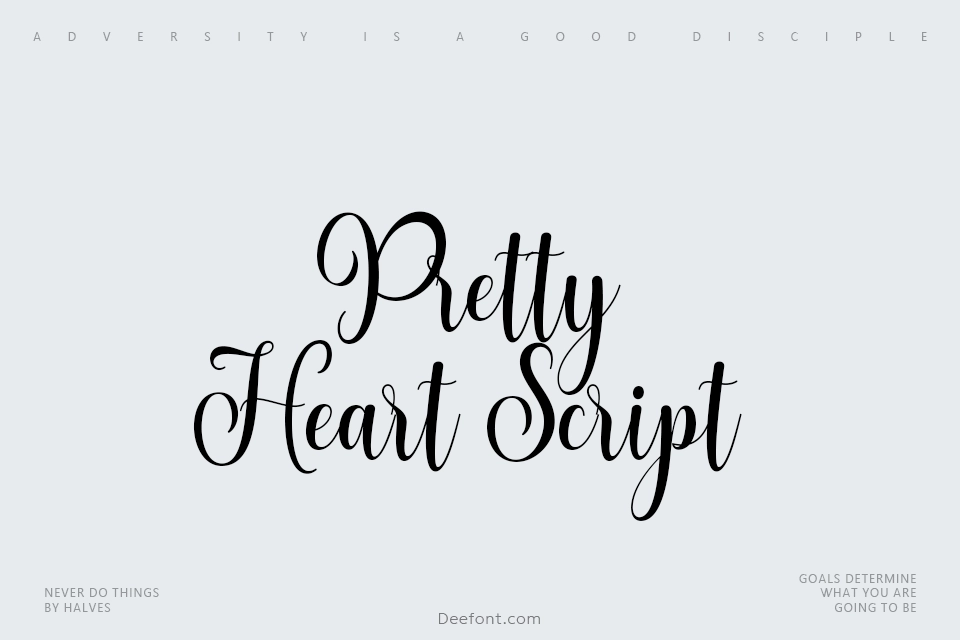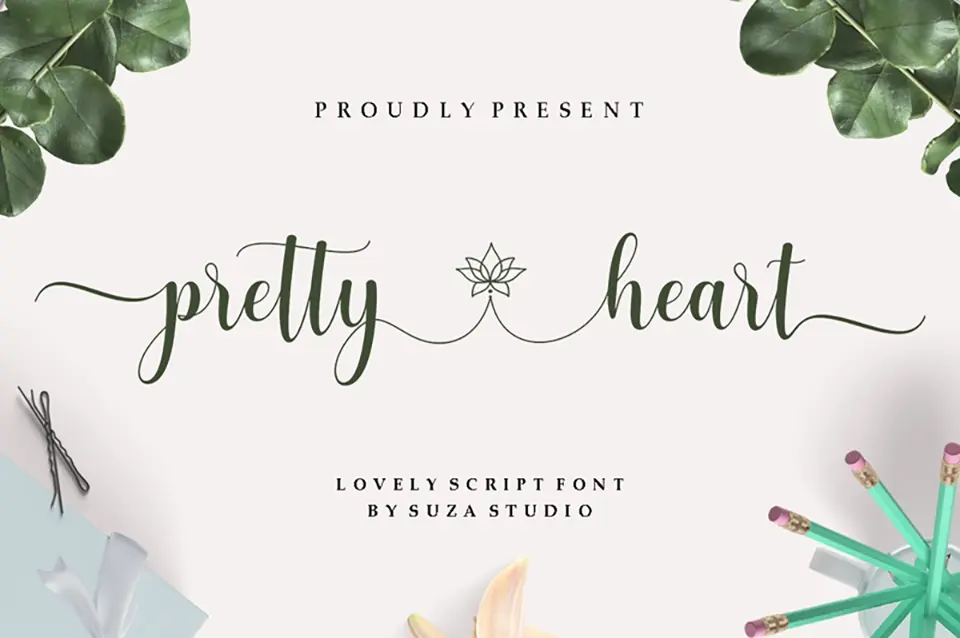
Pretty Heart Script Font
Pretty Heart Script is an elegant and flowing calligraphy font with an irregular baseline, perfect for creating beautiful designs. This lovely script typeface captures the essence of modern handwriting with its trendy and smooth letterforms. Ideal for wedding invitations, thank you cards, quotes, branding projects, and stationery, the font brings sophistication and warmth to any creative work. Its charming character makes it an excellent choice for personal and artistic projects that require a touch of elegance and femininity.